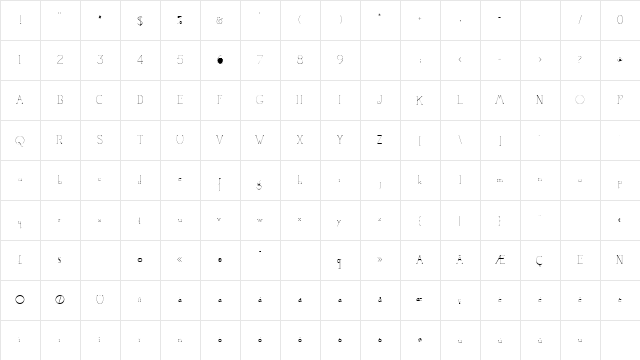
Camelot DeNada
Design Context for Camelot Typeface
Camelot takes a measured approach to typography — its balanced proportions and neutral character make it a reliable workhorse for both digital and print work.